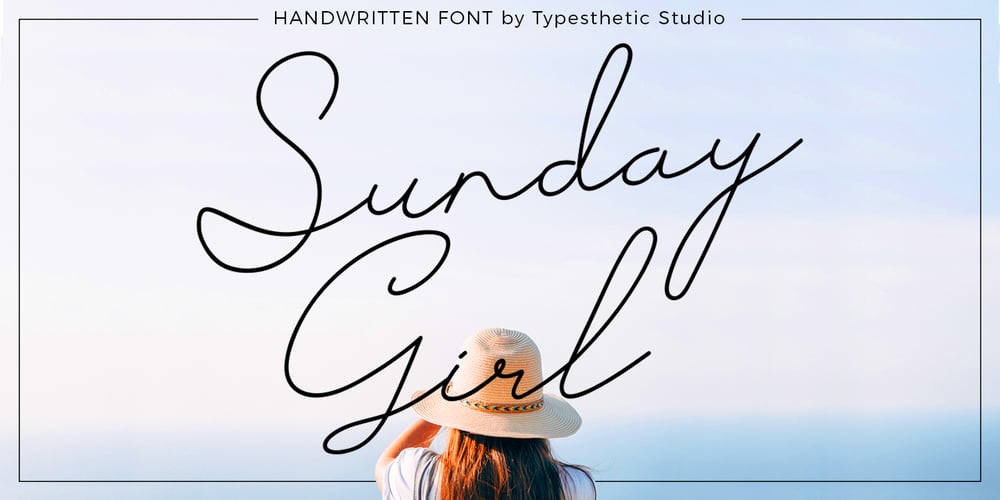
Sunday Girl
Sunday Girl font
Sunday Girl Font Family was designed by Hamzah Muhamad Ihsan and published by Typesthetic Studio. Sunday Girl contains 1 styles and family package options. Sunday Girl is clean & fresh script with a stylish handwritten and script style make this font looks natural, classy and perfect for any awesome projects that need handwriting taste.Sunday Girl font is perfect for creating authentic hand-lettered text quickly & easily. This font also perfect for many different project such as logos & branding, invitation, stationery, wedding designs, social media posts, advertisements, product packaging, product designs, label, photography, watermark, special events or anything.